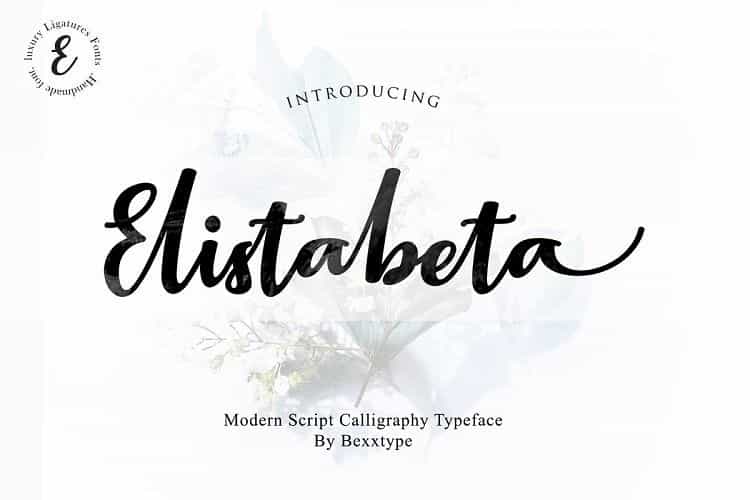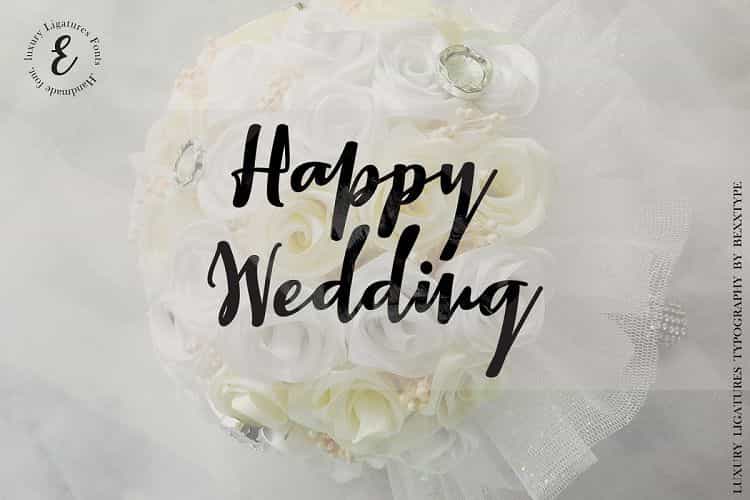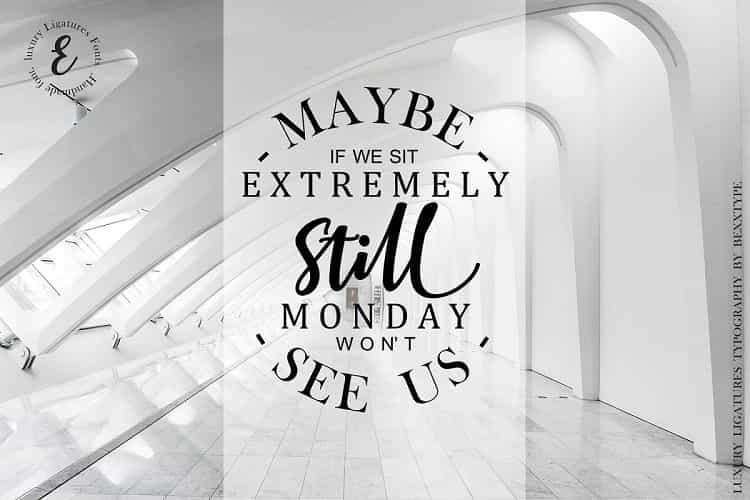
Introducing Elistabeta Font. A contemporary calligraphy script typeface. Elistabeta was the creation and a sharing by Bexxtype. Elistabeta Font is a brand new and modern script with a handmade calligraphy style, decorative characters and a dancing baseline!Thus, it is a good idea to use this font in invitation like greeting cards, branding materials, business cards, quotes, posters and the rest!!